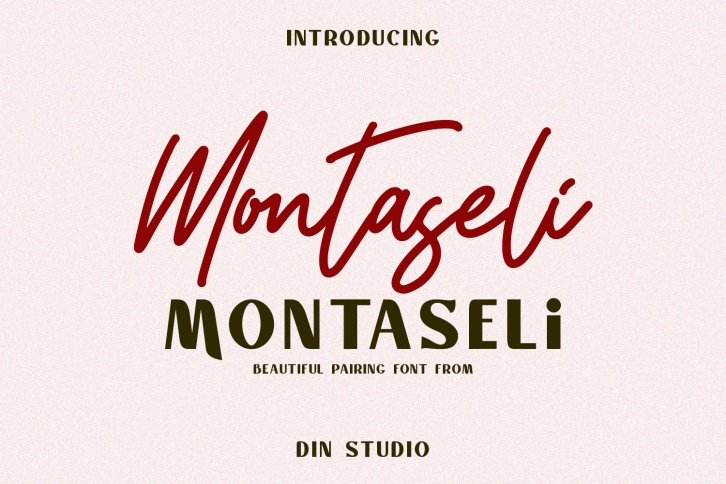
Introducing Montaseli – Font Duo, Montaseli is a beautiful pairing font from din studio, designed with a modern and bold style. It’s suitable for branding, logo, and many other designs.
•Accents (Multilingual characters)
•16 Ligatures and Alternates
•Numerals and Punctuation (OpenType Standard)